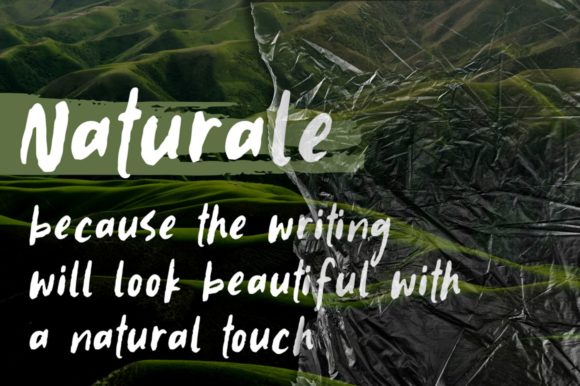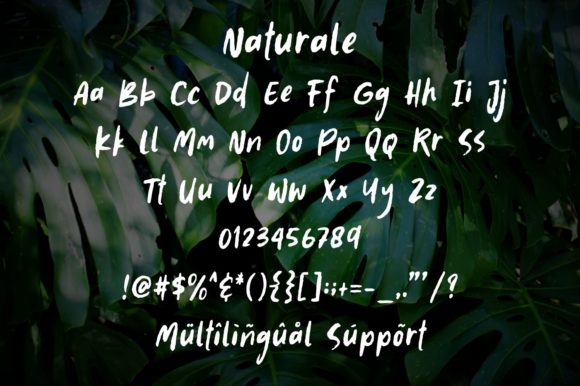
About Naturale Font
Naturale is a charming and graceful handwritten font that exudes a natural and effortless beauty. Crafted with the aid of a brush pen, this font captures the organic flow of hand lettering, giving your creative ideas a touch of authenticity and uniqueness. Its simplicity and neatness add a touch of elegance to any design, making it stand out from the crowd.
When you incorporate Naturale into your creative projects, you’ll immediately notice how it elevates them to a whole new level. Whether you’re working on invitations, logos, quotes, social media graphics, or any other design, this font will effortlessly enhance the overall look and feel.
For invitations, Naturale sets a tranquil and inviting tone, perfect for weddings, garden parties, and other serene gatherings. Its clean letterforms add a touch of sophistication, while the brush pen texture infuses a sense of warmth and intimacy, making recipients feel special and cherished.
In logos and branding, Naturale exudes a natural and genuine quality, ideal for businesses that want to convey an authentic and approachable image. Its handwritten style evokes a sense of craft and artistry, perfect for small businesses, artisanal products, and nature-inspired brands.
For quotes and inspirational graphics, Naturale adds a soft and heartfelt touch to meaningful messages. The simplicity of the font allows the words to take center stage, while the brush pen effect adds a subtle visual interest, making the quotes even more impactful and memorable.
On social media, Naturale’s clean and distinct lettering stands out, capturing the attention of followers and creating a cohesive and appealing visual identity for your brand or personal profile.
In DIY projects and crafts, Naturale brings a handmade charm to handmade cards, scrapbooking, and other creative endeavors. Its brush pen strokes add an artistic flair, making your creations feel personal and authentic.
In summary, Naturale is a beautiful and versatile font that effortlessly makes your creative ideas stand out. Its simplicity, neatness, and brush pen texture create a delightful harmony, perfect for a wide range of projects. Whether you’re aiming for elegance, authenticity, or heartfelt charm, Naturale is the font to choose. Embrace the natural beauty of Naturale, and let it breathe life into your designs, leaving a lasting impression on everyone who encounters them.